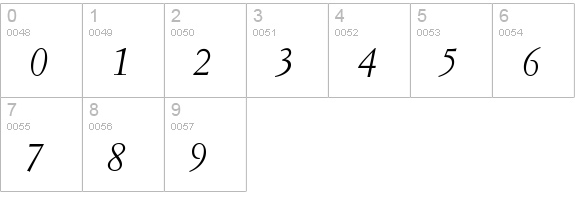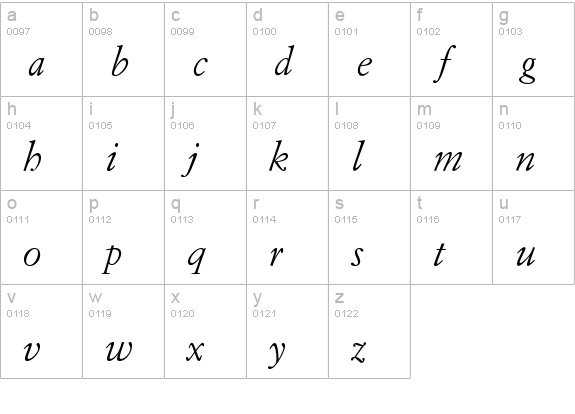
Italian Garamond Italic Font Details
Italian Garamond Italic is a distinctive, italic variant in the Italian typeface family \xE2\x80\x94 well suited to design and typography projects.
Italian Garamond Italic is an exquisite font that beautifully captures the elegance and sophistication of the Italian Renaissance. With its graceful curves and delicate strokes, this font exudes a sense of timeless beauty that is sure to elevate any design project. Designed with a meticulous attention to detail, Italian Garamond Italic showcases the unique characteristics of the Garamond typeface, enhanced with an added touch of Italian flair. The slanted and cursive nature of the italic style adds a touch of dynamism and fluidity, making it perfect for conveying a sense of movement and grace. This font is a testament to the rich history of typography, paying homage to the work of Claude Garamond, one of the most influential type designers of the 16th century. It embodies the essence of traditional calligraphy, while also incorporating modern design elements, making it a versatile choice for a wide range of creative projects. The beauty of Italian Garamond Italic lies not only in its aesthetic appeal but also in its accessibility. As a free font, it is readily available to designers, artists, and typographers alike. Whether you are working on a personal project or a professional endeavor, you can freely download Italian Garamond Italic at FontsMarket.com. Embrace the timeless charm of Italian Garamond Italic and let its graceful strokes and captivating curves add a touch of sophistication to your designs. Whether it is used in branding, advertising, invitations, or any other creative pursuit, this font is sure to leave a lasting impression on your audience. Experience the beauty and versatility of Italian Garamond Italic today and unlock a world of endless design possibilities.